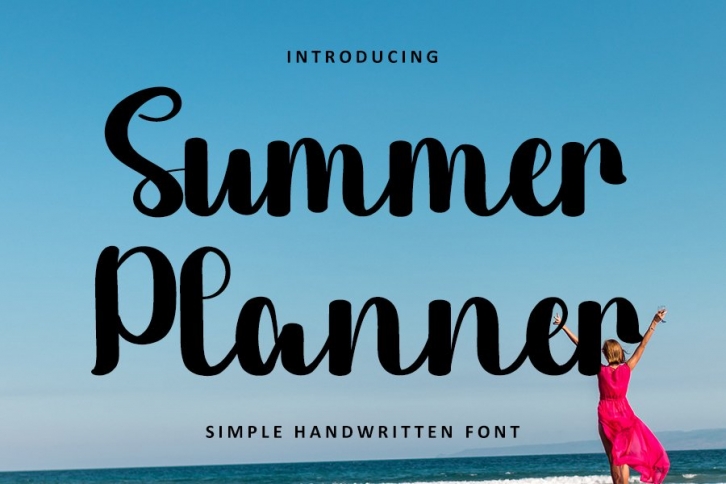
Summer Planner is a beautiful font that was designed by InermediaSTUDIO. It's a great choice for designers and creatives who need such a font. It was released on May 20, 2022 and the file size is 18.18 MB. Summer Planner may give a more youthful, expressive and casual look to your project. It is a very beautiful, refined, elegant, and high-quality font.